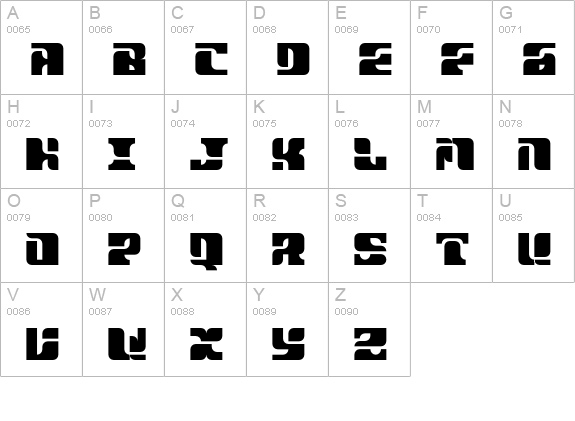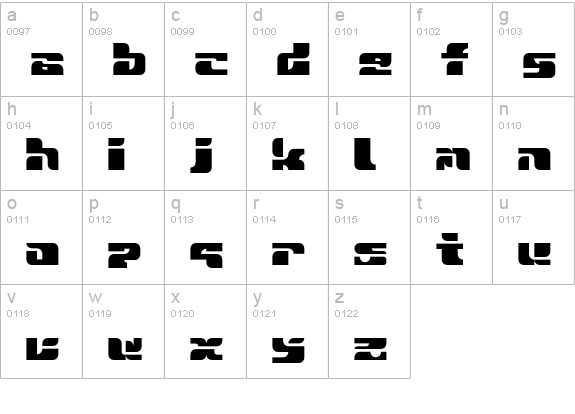
Sportswear-ERegular Font Details
Sportswear-ERegular font is a versatile and dynamic typeface that perfectly captures the essence of athleticism and sportswear. With its bold and energetic design, this font is ideal for creating eye-catching headlines, logos, and promotional materials for sports-related brands, events, and teams. The Sportswear-ERegular font features strong and sturdy letterforms, reminiscent of athletic strength and determination. Its clean and sharp edges give it a modern and contemporary feel, making it the perfect choice for any design project that requires a sporty and energetic touch. Whether you're designing a sports magazine cover, a fitness apparel logo, or a sports event poster, Sportswear-ERegular font will add a touch of professionalism and excitement to your designs. Its versatility allows it to be used in various design contexts, from print to digital media. What sets Sportswear-ERegular font apart is that it is freely available to download at FontsMarket.com. This means that you can easily access and use this font for any personal or commercial project without any restrictions. FontsMarket.com is a trusted online platform for font enthusiasts, providing a wide range of high-quality fonts for free download. So, if you're looking to add a sporty and dynamic touch to your designs, look no further than Sportswear-ERegular font. Download it for free at FontsMarket.com and let your creativity shine with this bold and energetic typeface.